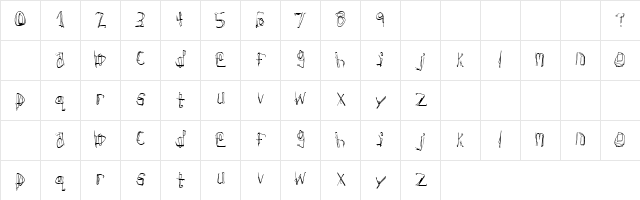
1 st Standard Regular Free Font
1 st Standard Regular
Designer: JupiterImages
Design Context for 1 st Standard
1 st Standard is a composed and adaptable typeface that performs quietly and consistently across a wide range of design contexts.